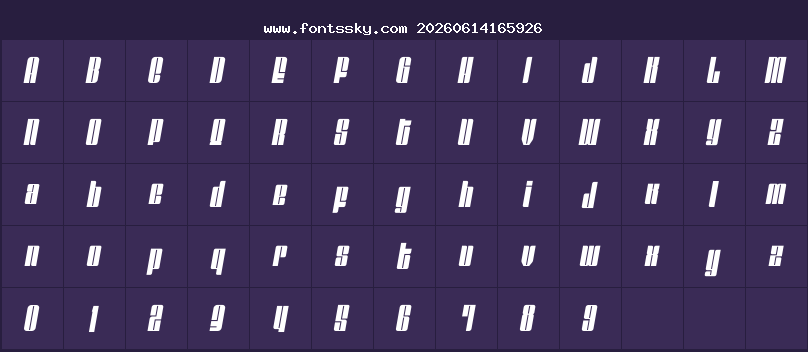
chappa Black Preview
• Font Name: chappa Black
• Full Font Name: chappa Black Oblique
About chappa Black.ttf
chappa Black.ttf is a modern, elegant sans-serif font designed for ultimate readability and visual harmony. Perfect for branding, headlines, web design, and print materials.